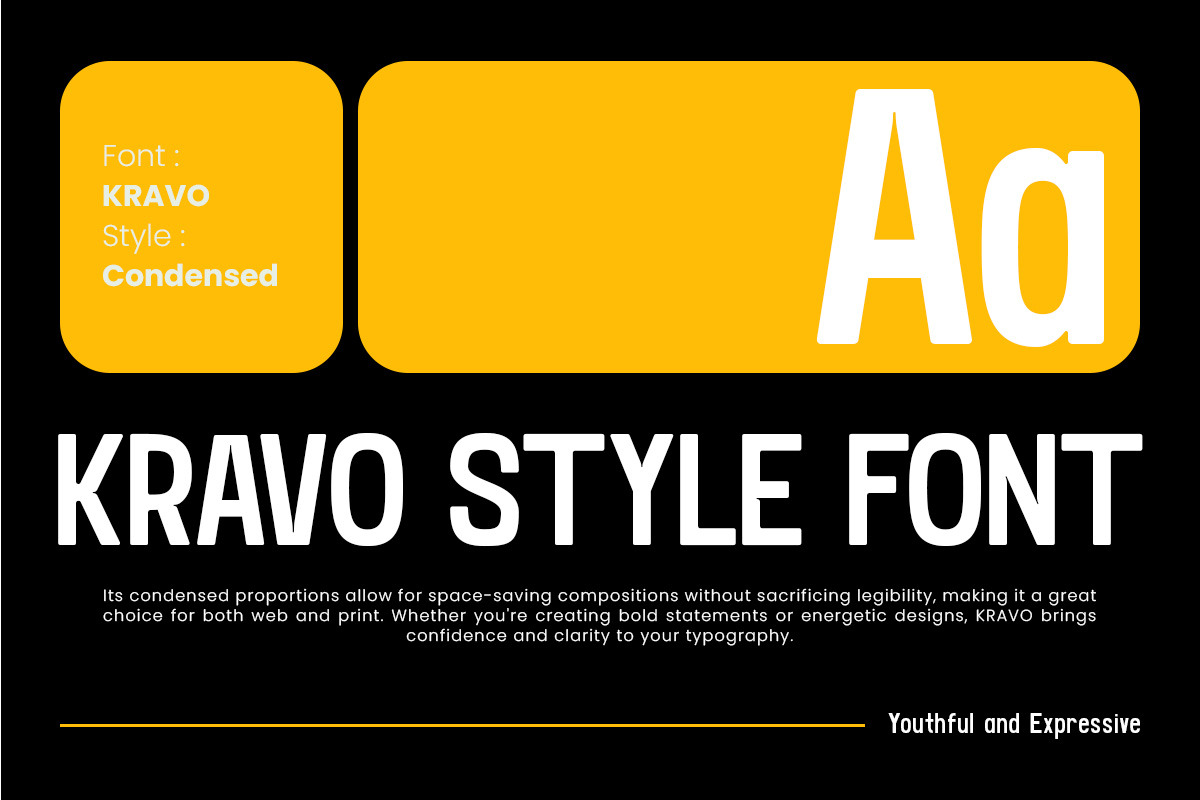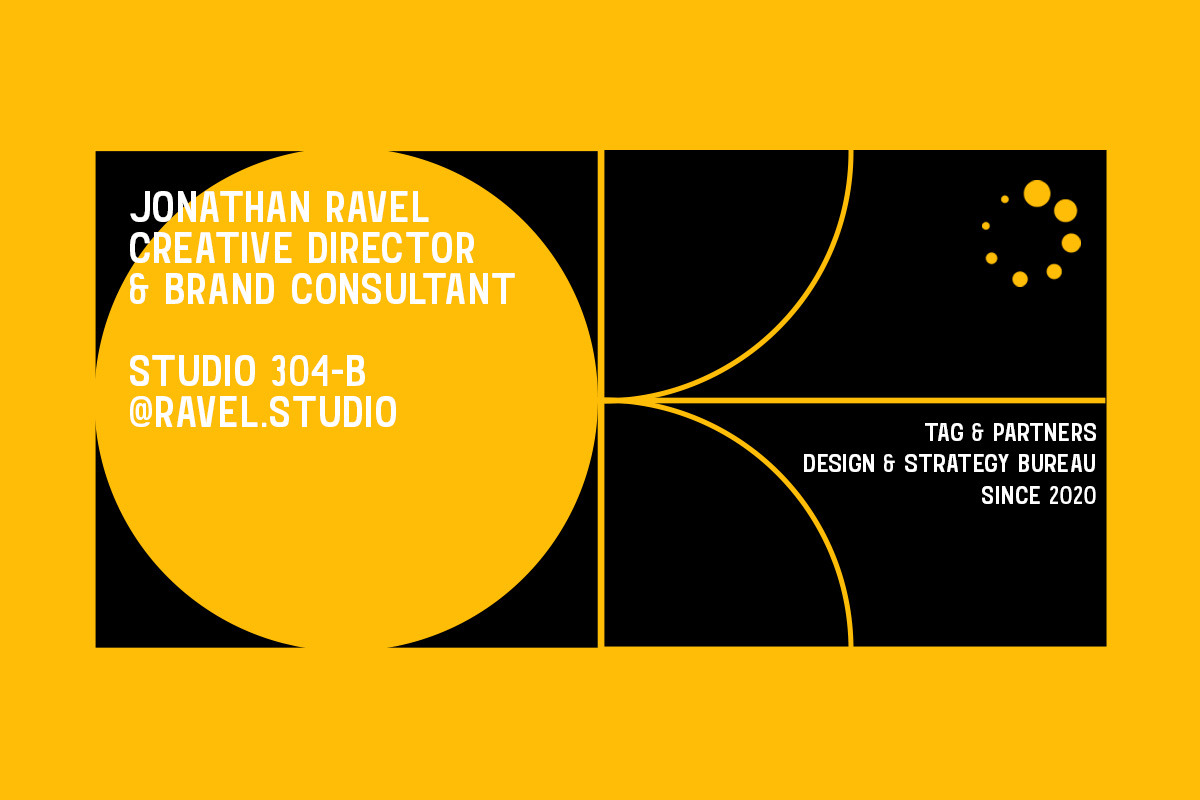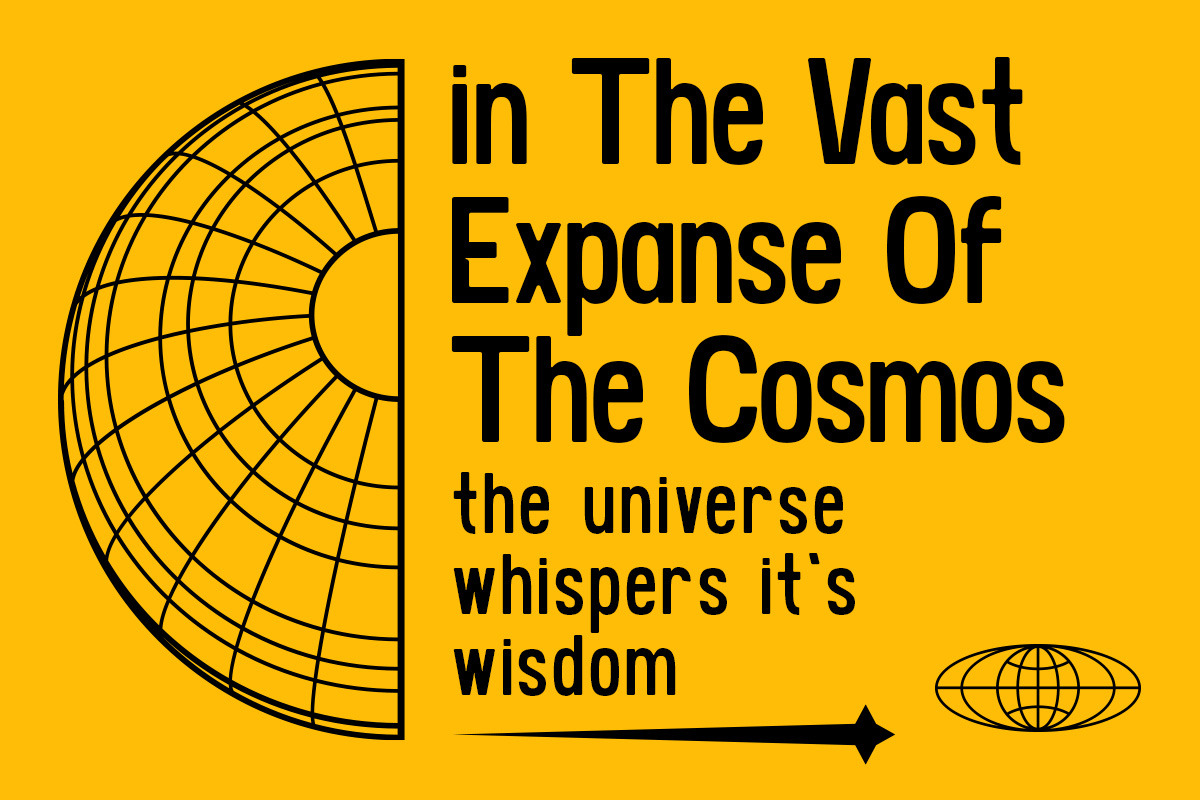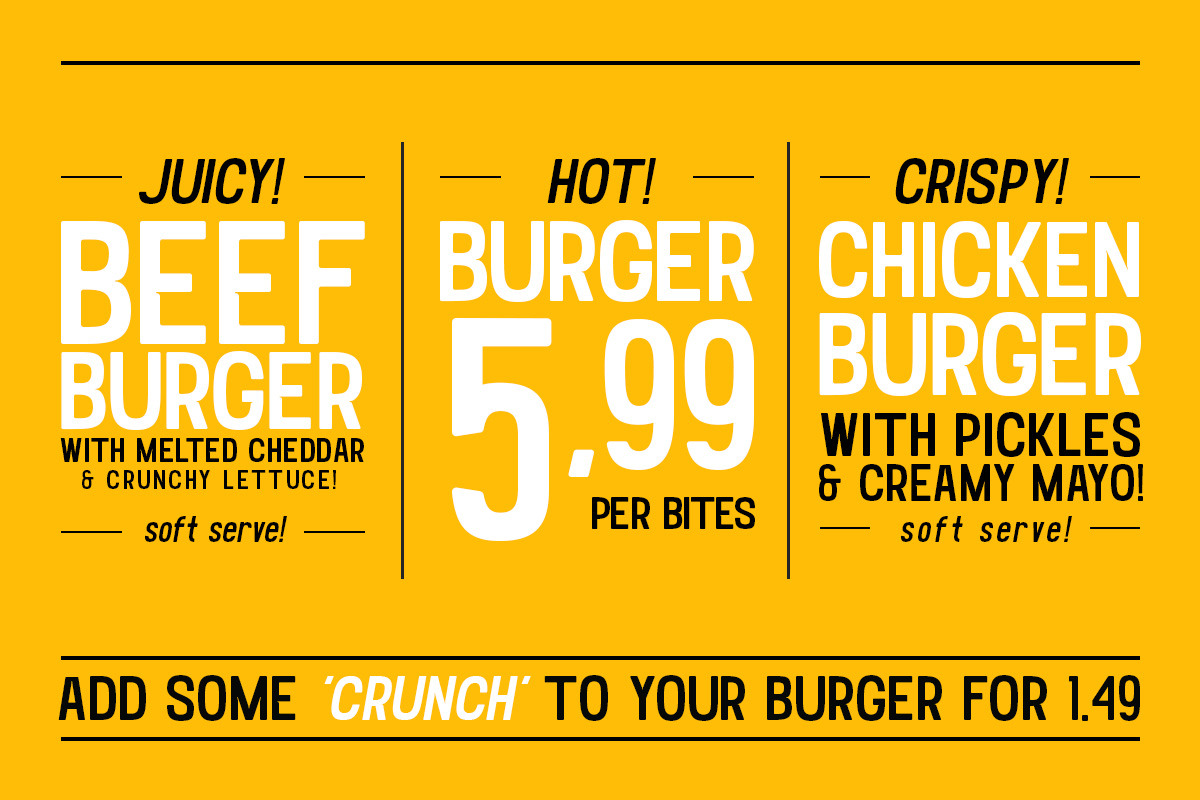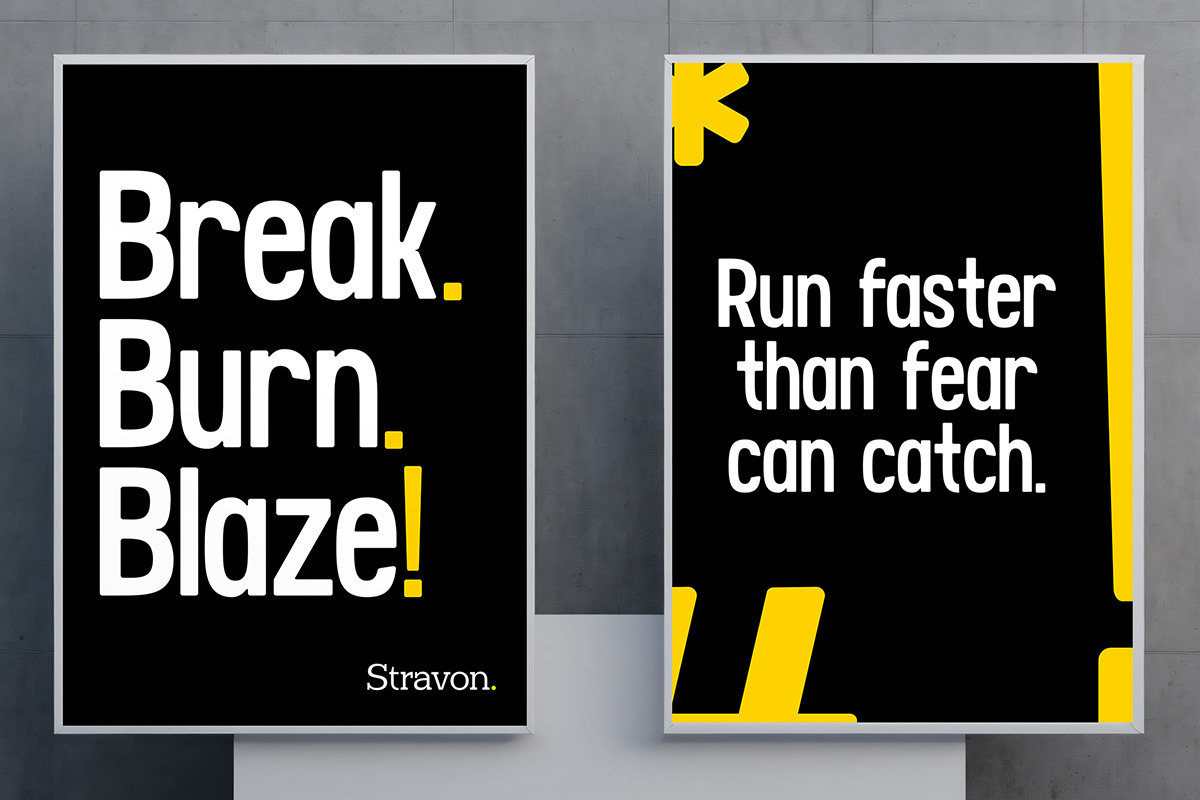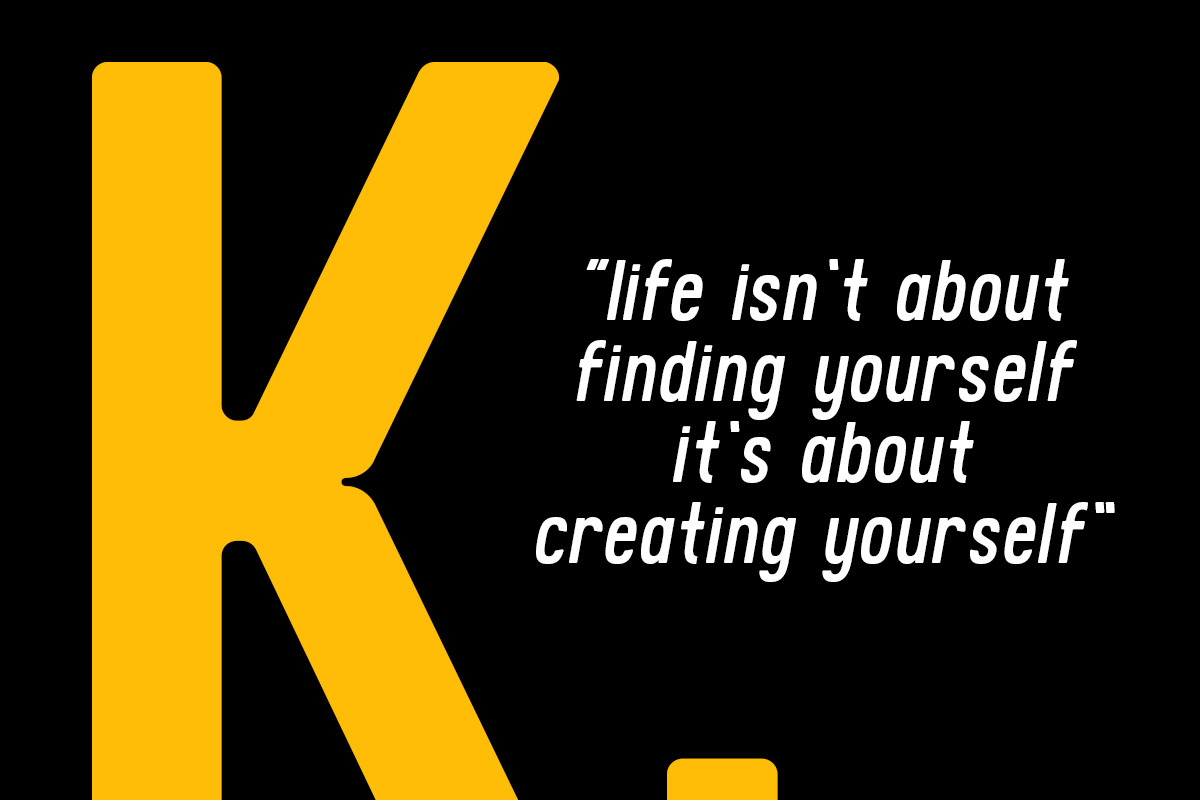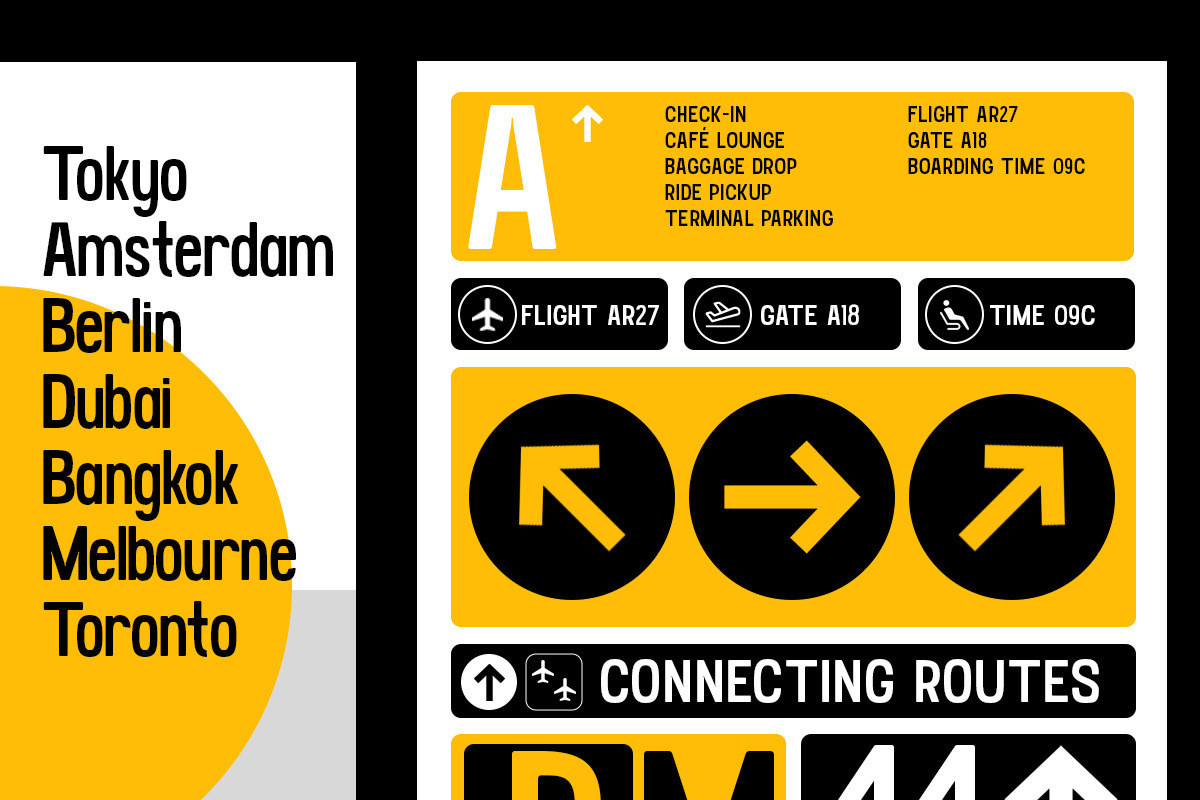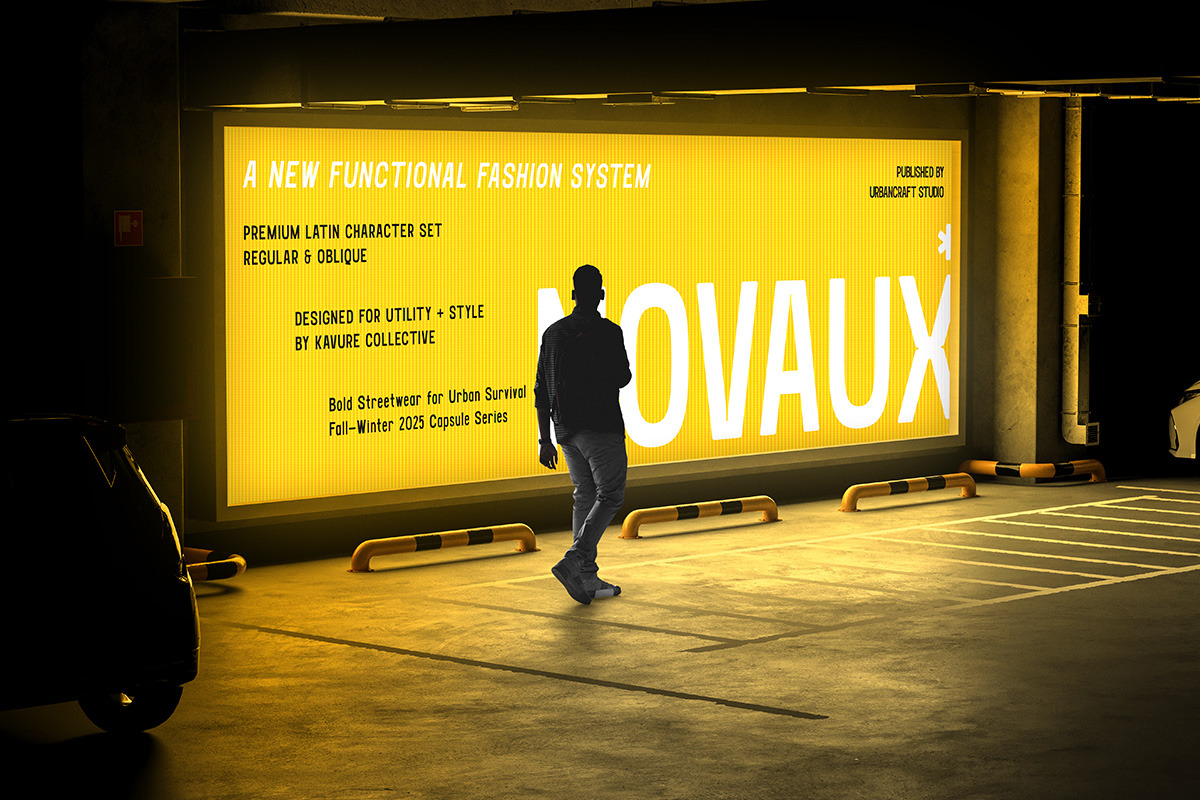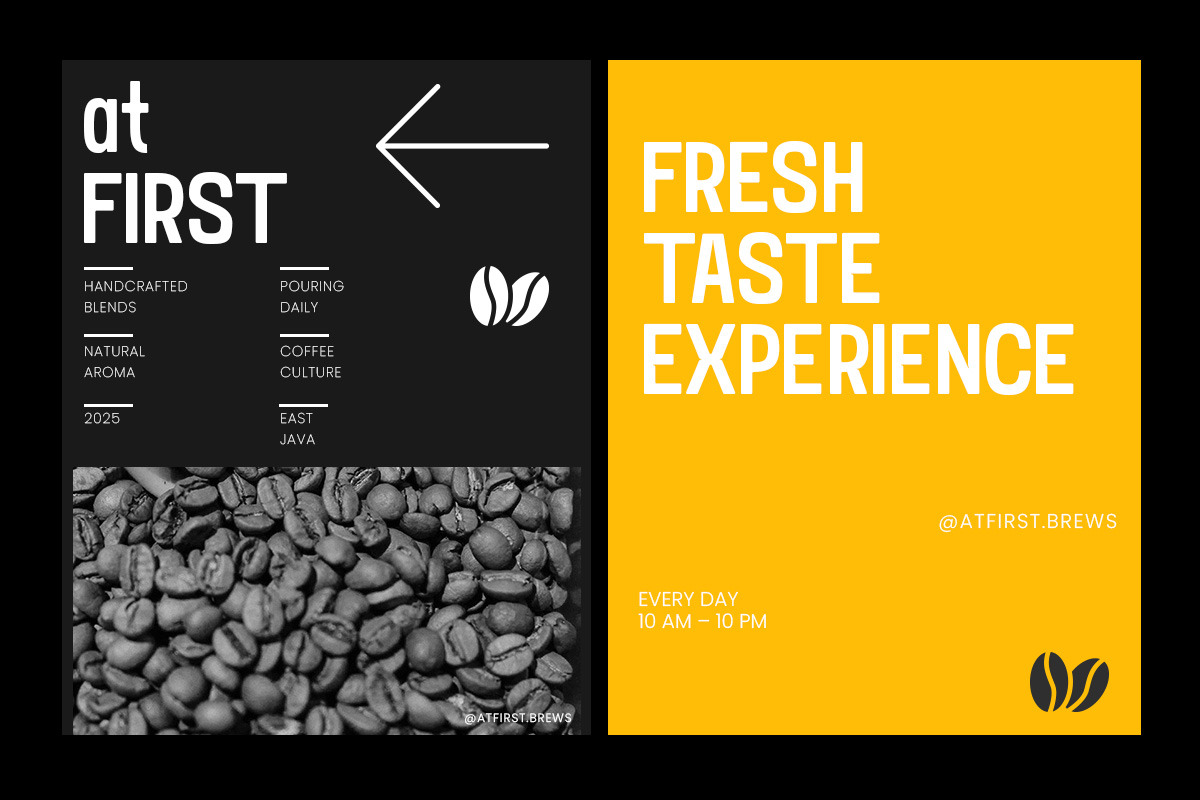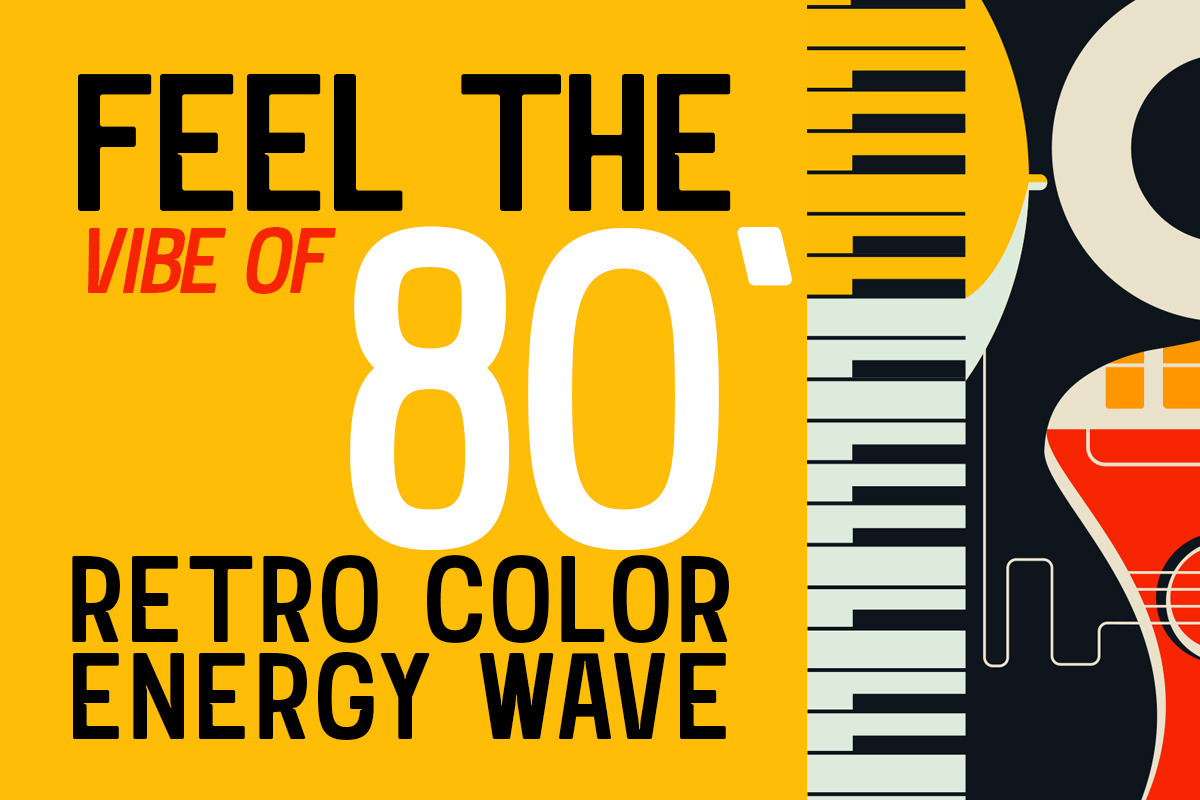
Kravo – Bold Condensed Sans for Head
Kravo a bold and condensed sans serif typeface designed to command attention and make a powerful visual impact.
Kravo’s tall structure and compact letterforms offer high legibility while maximizing space, making it the perfect choice for headlines, posters, editorial titles, and impactful branding. With clean lines and a modern feel, Kravo delivers clarity with character—perfect for designers who want to make a statement without overwhelming the layout.
Whether you’re working on digital graphics, magazine covers, web headers, or campaign visuals, Kravo gives your words volume and presence. Built to be bold yet readable, it’s a versatile typeface that suits contemporary design demands.
- All Caps
- Punctuation & numbers
- High legibility design
- Condensed structure
- Bold weight
- Editorial headlines & magazine layouts
- Posters, flyers, and campaign materials
- Branding & identity for bold companies
- Social media graphics & website banners
- High-impact typographic designs
Kravo isn’t just a font—it’s a voice. Loud, clear, and confident.